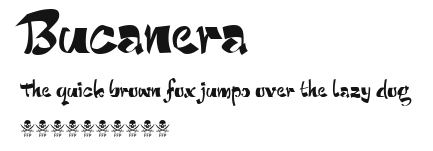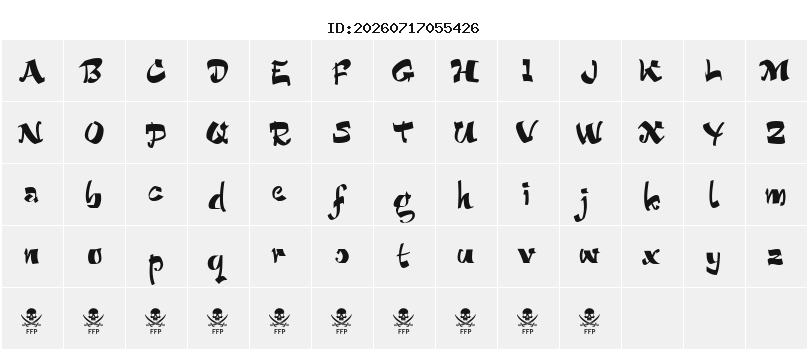
• Font Name: Bucanera
• Designer: Fernando Haro
• Manufacturer: deFharo
• Description: Bucanera is a calligraphic typeface with pirate inspiration and ornaments, the result of the frustration that caused me stealing other fonts by Russian hackers. Inglourious Basterds this font is for you !!